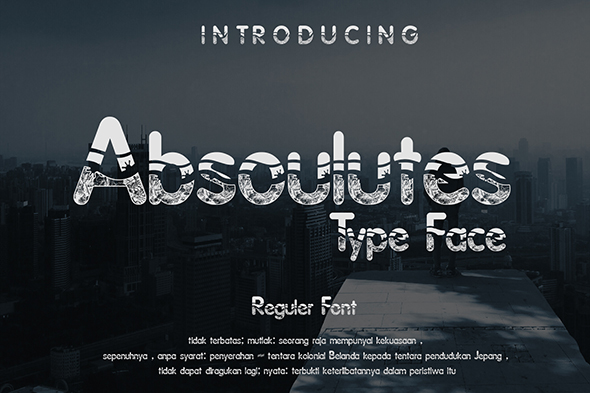
The Absoulutes Font: A Designer’s New Best Friend by Gblack Id.
I’ll never forget the time I was working on a branding project for a trendy coffee shop. My client wanted a font that was both elegant and quirky, but I was coming up blank. I scoured the internet, tried out dozens of fonts, but nothing seemed quite right. That was until I stumbled upon Absoulutes by Gblack Id. 🍵
It was love at first sight! The unique blend of modern and vintage vibes instantly resonated with my client’s aesthetic. But I wasn’t sure if it was the right fit. I needed to dig deeper, test it out, and see if it was worth sharing with my fellow designers and crafty friends. And that’s exactly what I’m excited to share with you today.
Honest Review: The Good, the Bad, and the Quirky
- ✨ Unique and quirky design that stands out from the crowd
- ✅ Excellent for branding, packaging, and advertising projects
- 🎨 Highly versatile and pairs well with a variety of fonts and styles
- 💻 Great for both digital and print applications
- ⚠️ Limited language support, mainly suitable for English and Western European languages
A Practical Guide to Using Absoulutes
Gblack Id., the mastermind behind Absoulutes, is a talented designer with a passion for creating unique and functional fonts. With a keen eye for detail and a love for typography, Gblack Id. has crafted a font that is both stylish and versatile. Whether you’re a seasoned designer or a crafty hobbyist, Absoulutes is sure to inspire your next creative project.
| Font Name | Absoulutes Font |
| Author | Gblack Id |
| What type of projects is Absoulutes best suited for? | Absoulutes is a versatile font that can be used for a wide range of projects, including branding, packaging, advertising, and more. |
| Is Absoulutes suitable for body text? | While Absoulutes is a beautiful font, it’s best used for headlines and titles. For body text, you may want to choose a font with better legibility. |
| Does Absoulutes support non-English languages? | Absoulutes has limited language support, mainly suitable for English and Western European languages. |